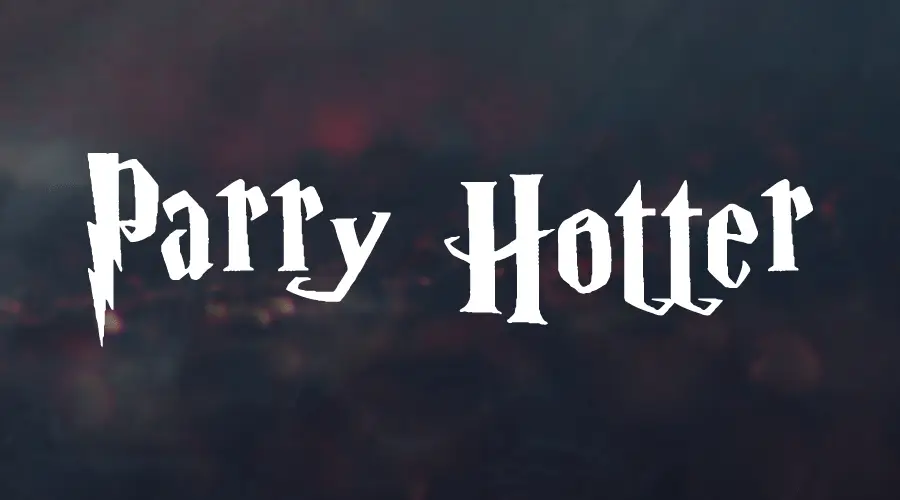
Harry Potter is a beloved book series that has captivated readers of all ages for decades. It has also inspired a variety of merchandise, games, and films. One of the most recognizable aspects of the series is its unique typography. The Harry Potter font is instantly recognizable and has become a staple for fans of the series. But did you know that there’s a fun alternative called Parry Hotter font?
What is Parry Hotter Font?
Parry Hotter font was created as a playful parody of the Harry Potter font by Anke-Art. It features a similar style to the original Harry P font, but with some distinct differences. The letter “P” has a longer tail, the letter “R” has a curved leg, and the letter “Y” has a looped descender. These subtle differences give Parry Hotter its own unique look while still maintaining a similar feel to the original Harry Potter font.
Uses For The Font
Parry Hotter font can be used for a variety of purposes. Its playful style makes it ideal for humorous or satirical projects, such as creating memes or making jokes about Harry Potter or other fantasy stories. It’s also great for personal projects, such as creating custom t-shirts or invitations for a Harry Potter-themed party.
If you’re looking for fonts that are similar to Harry Potter or Parry Hotter, here are a few options to consider:
- Magic School by FontMesa: Magic School font has a more ornate and decorative style than Harry P or Parry Hotter. Its elegant curves and embellishments make it perfect for formal invitations or other projects that require sophistication.
- Animales Fantastic by FZ Fonts: Animales Fantastic font has a more whimsical and playful style than Harry P or Parry Hotter. Its rounded edges and flowing lines give it a fun and lighthearted feel. This makes it perfect for children’s books or projects that require a youthful touch.
- Magic Owl by Shaped Fonts: Magic Owl features a cuter and cartoonish style than Harry P or Parry Hotter. Its bold lines and exaggerated features make it perfect for children’s books, logos, or other projects that require a playful touch.
In Conclusion
Whether you’re a fan of Harry Potter or just looking for a fun alternative to standard fonts, the Parry Hotter font is an excellent choice. Its playful style and unique look make it ideal for a variety of projects. And if you’re looking for other Harry Potter fonts, there are plenty of options to choose from. So go ahead and unleash your creativity – the magic of typography awaits!